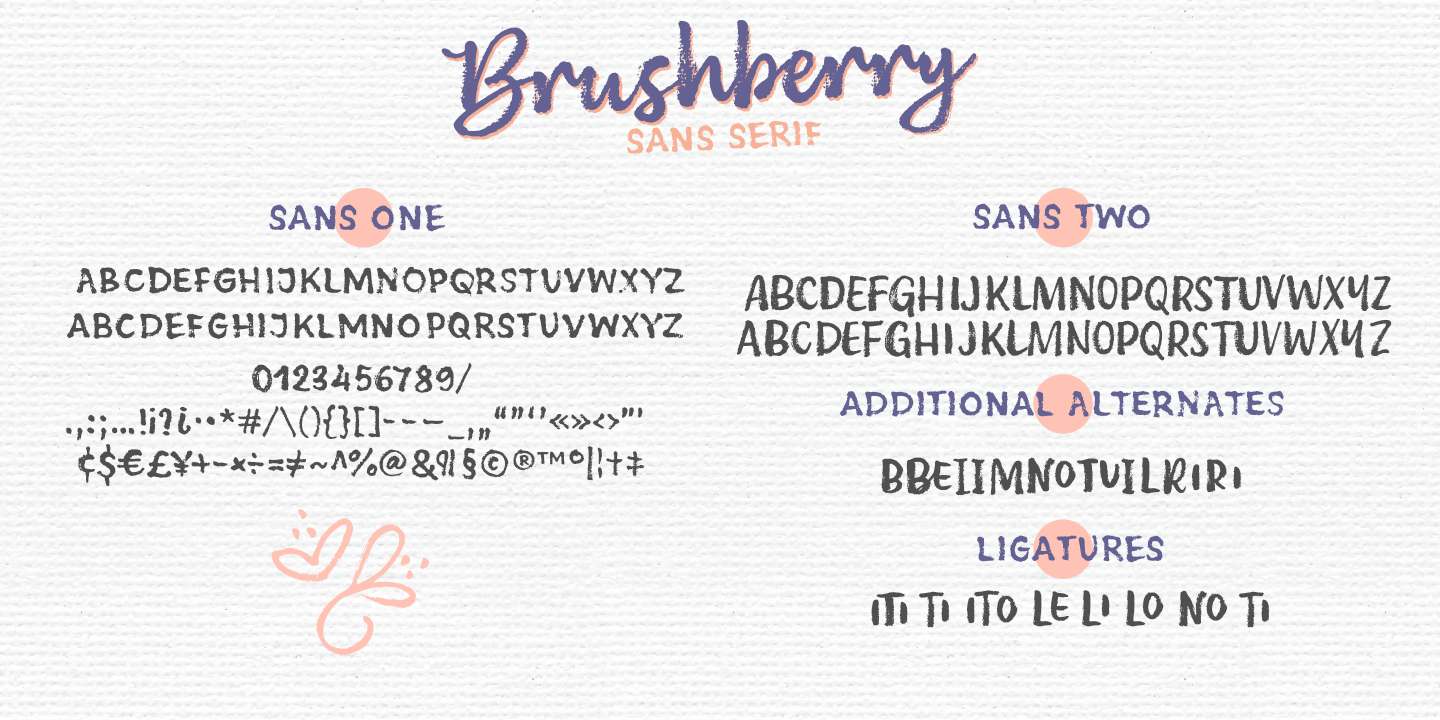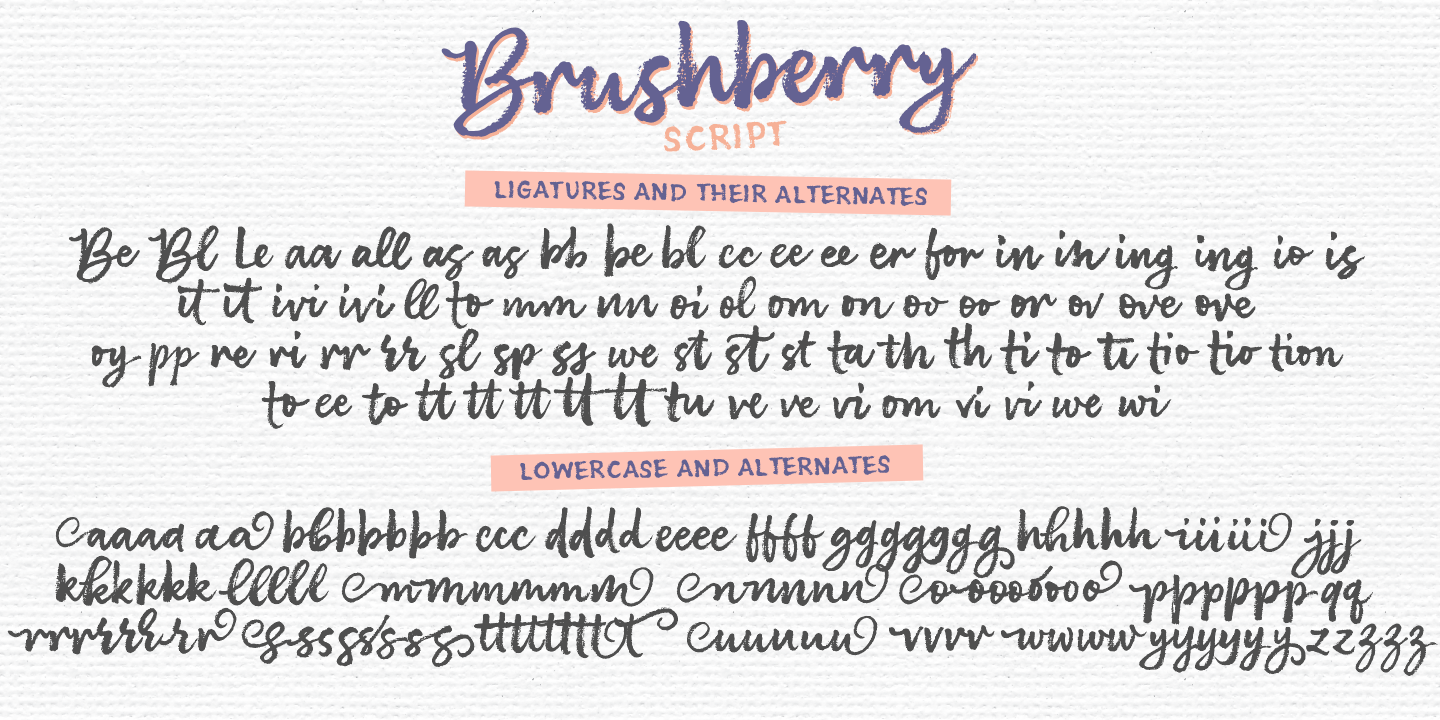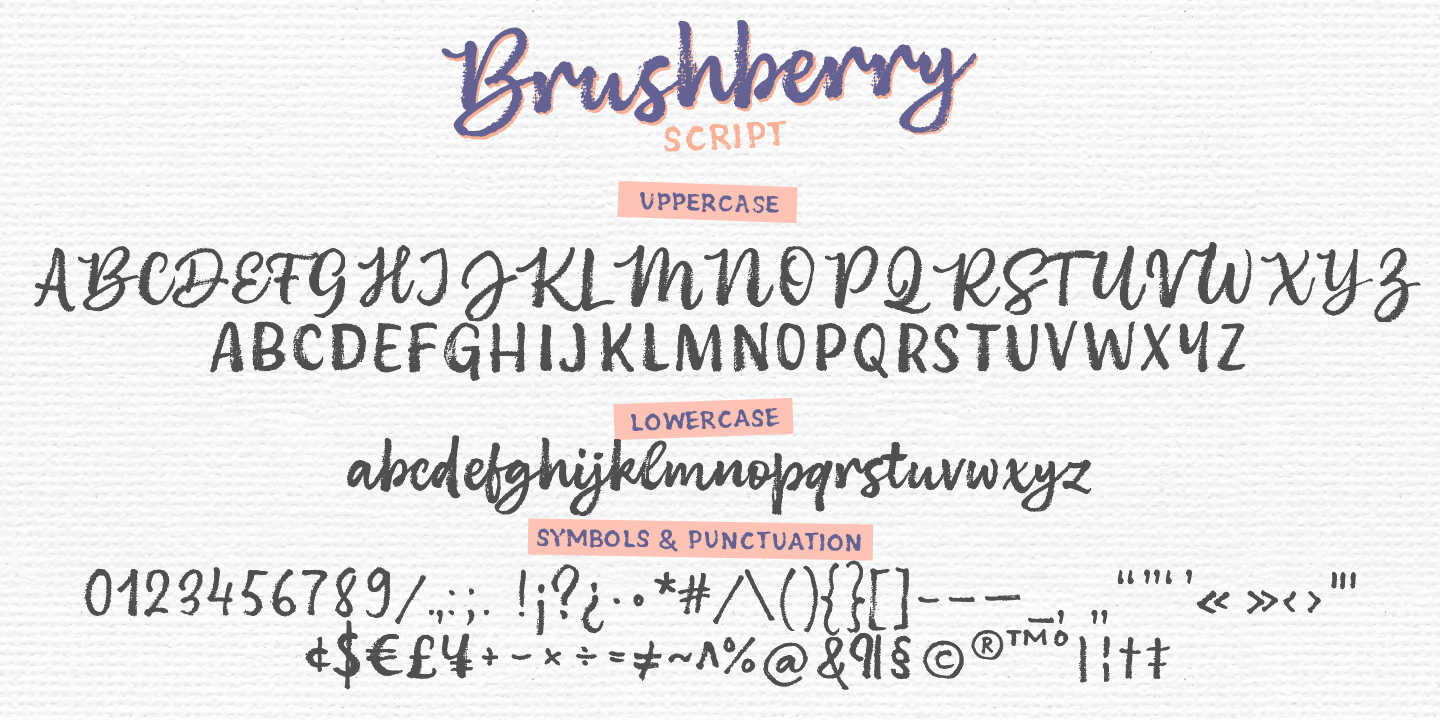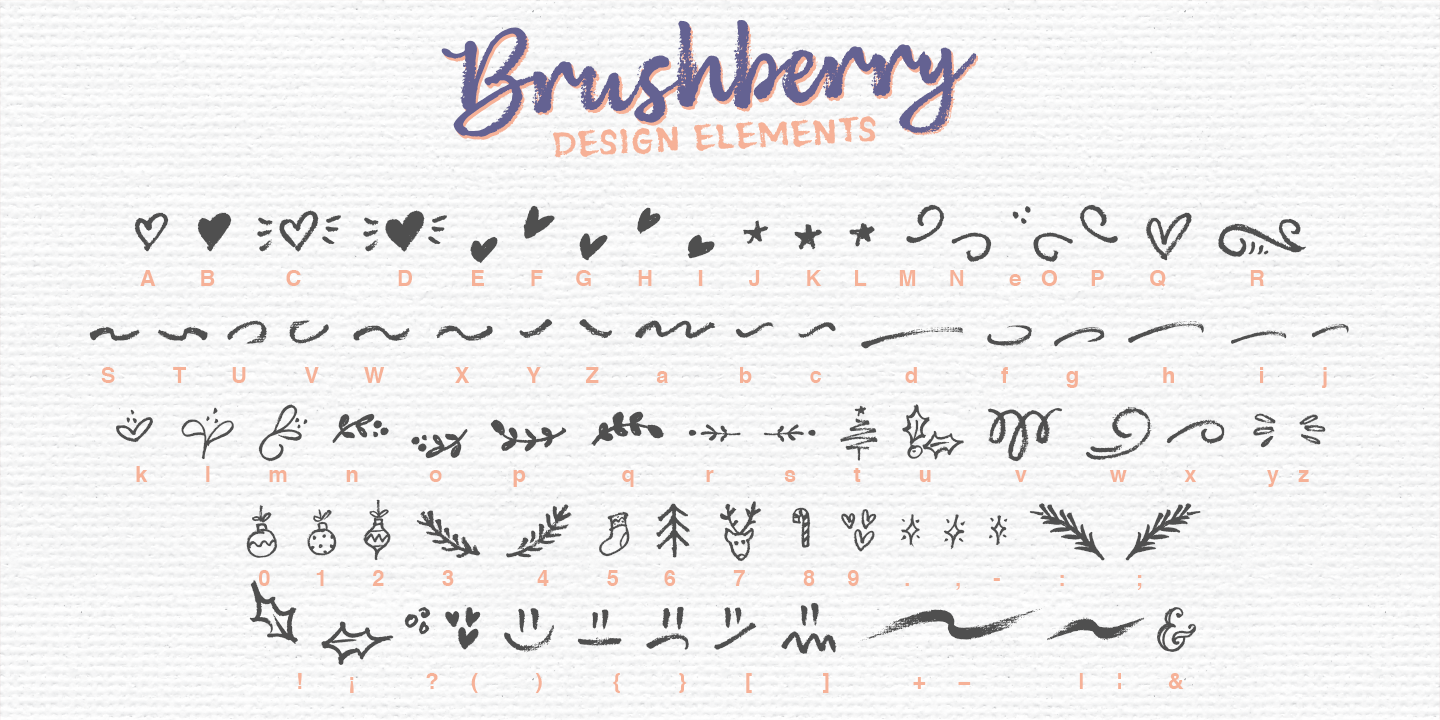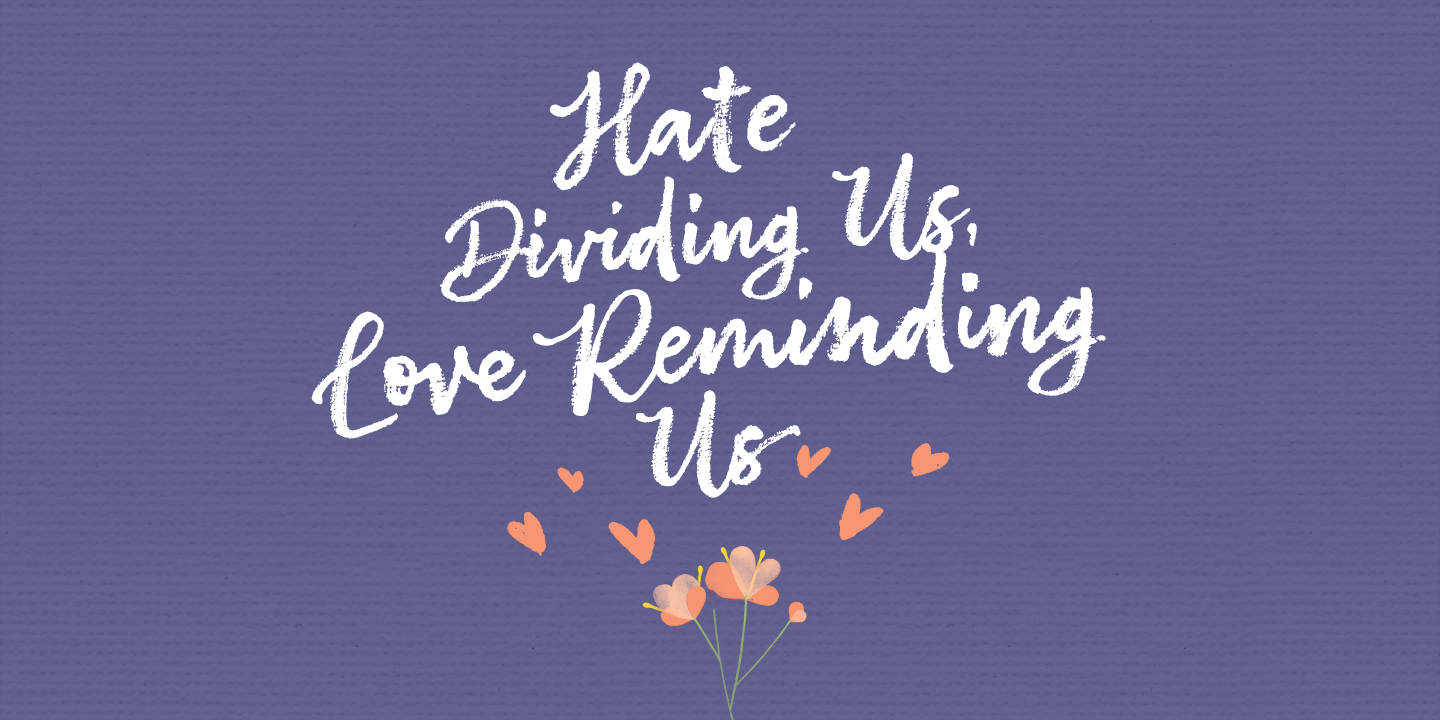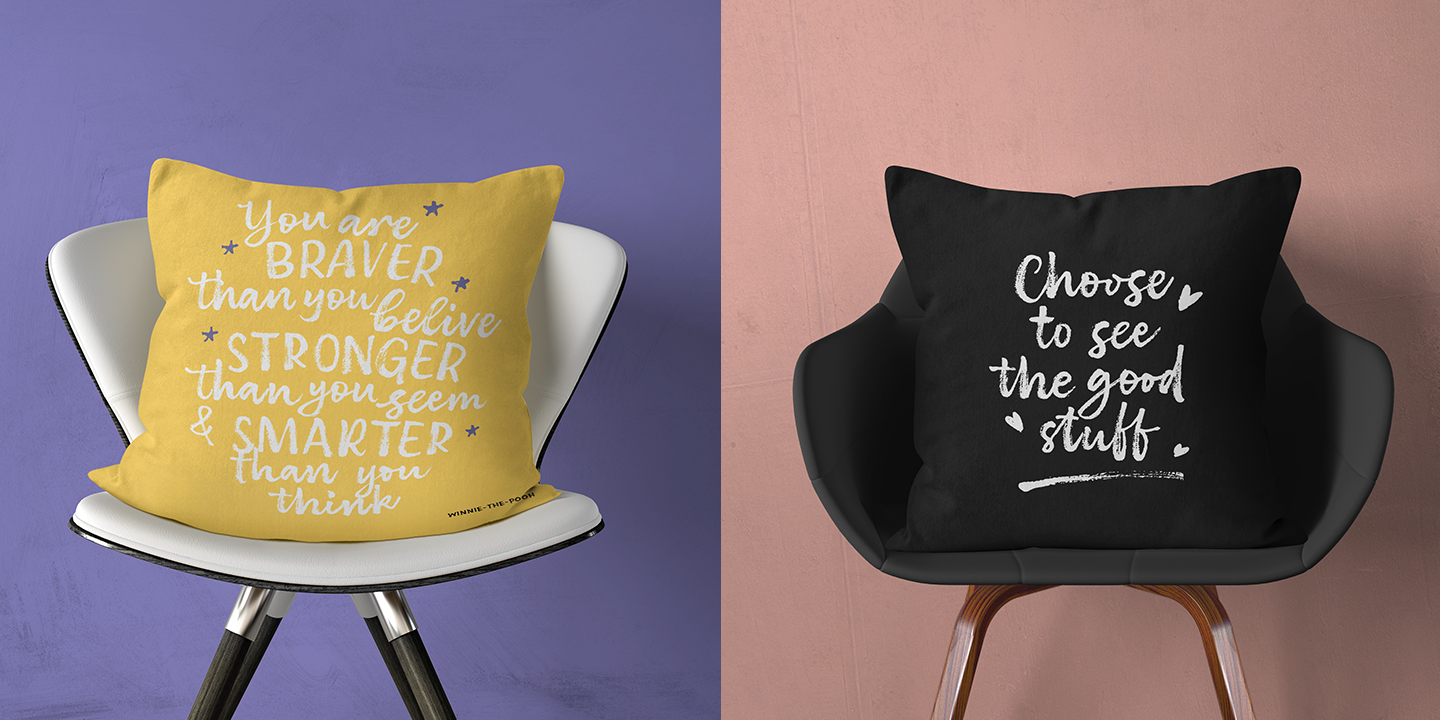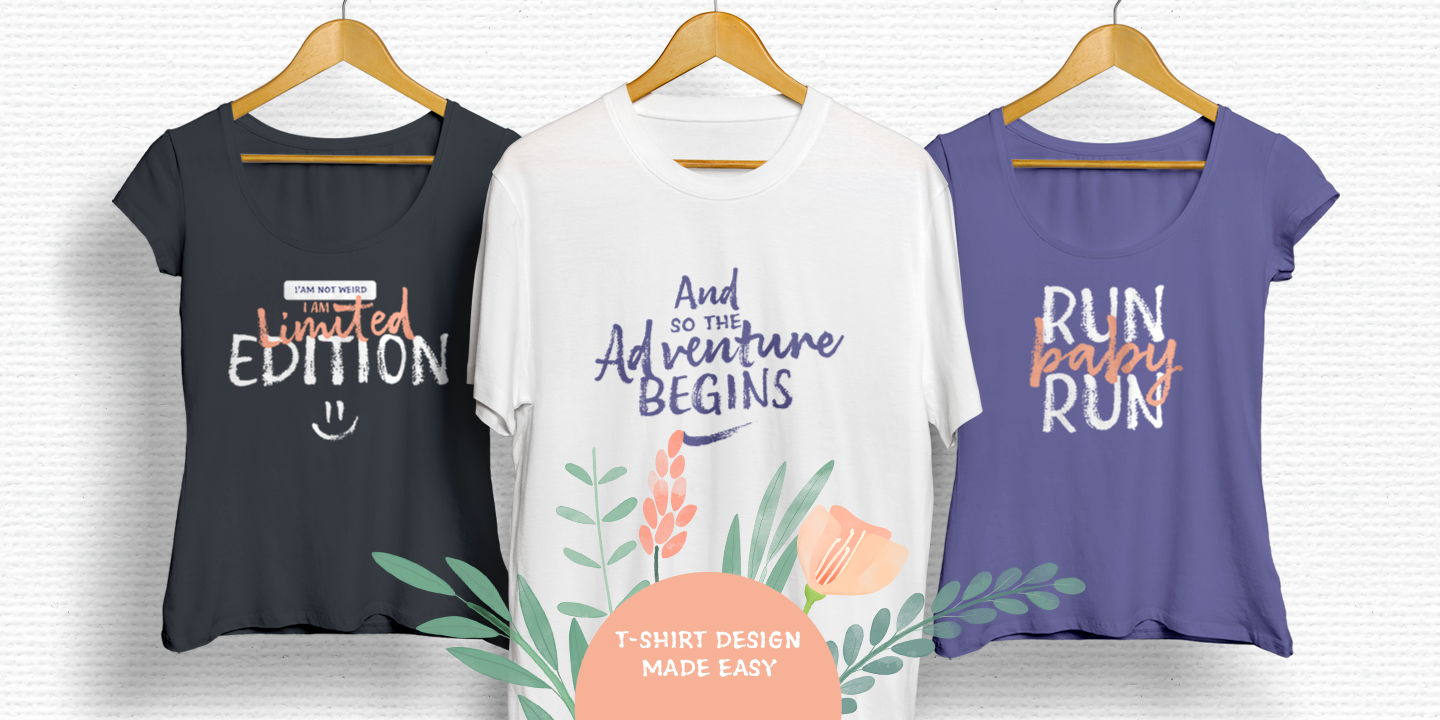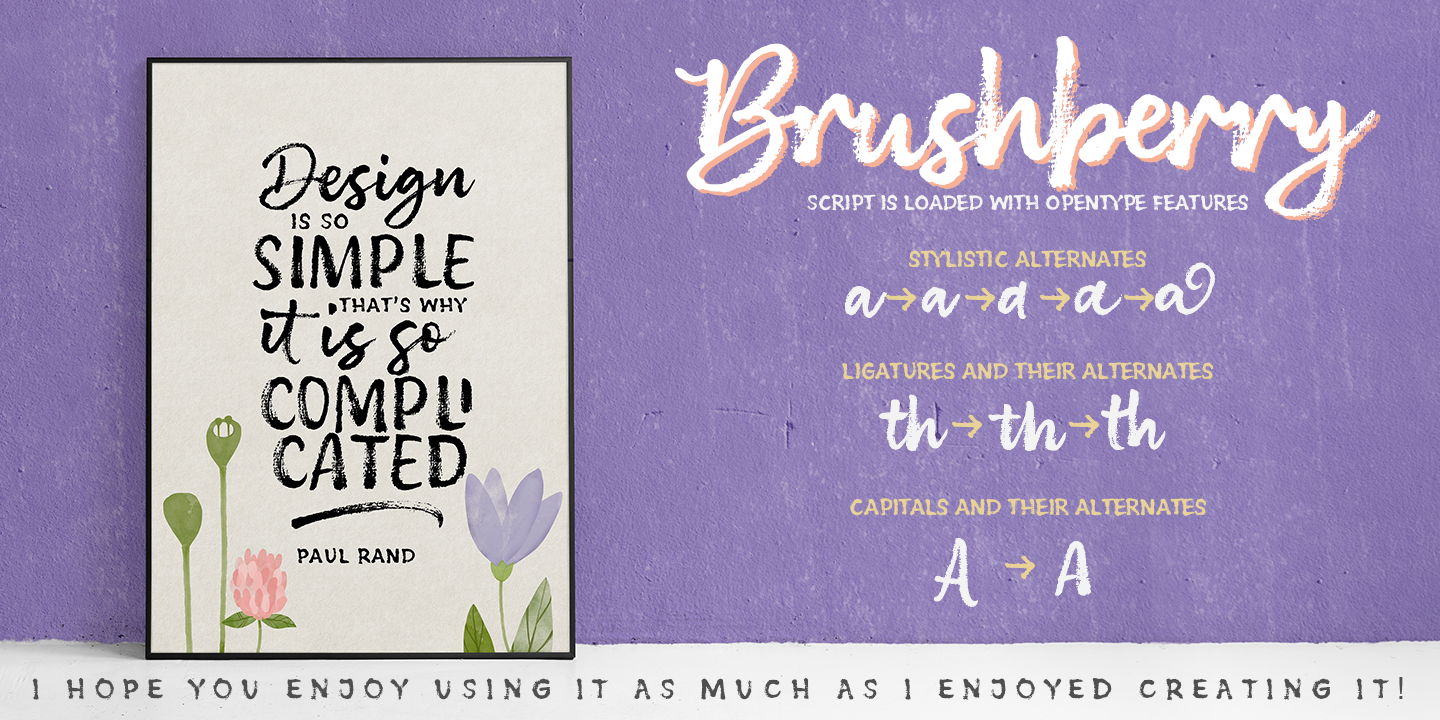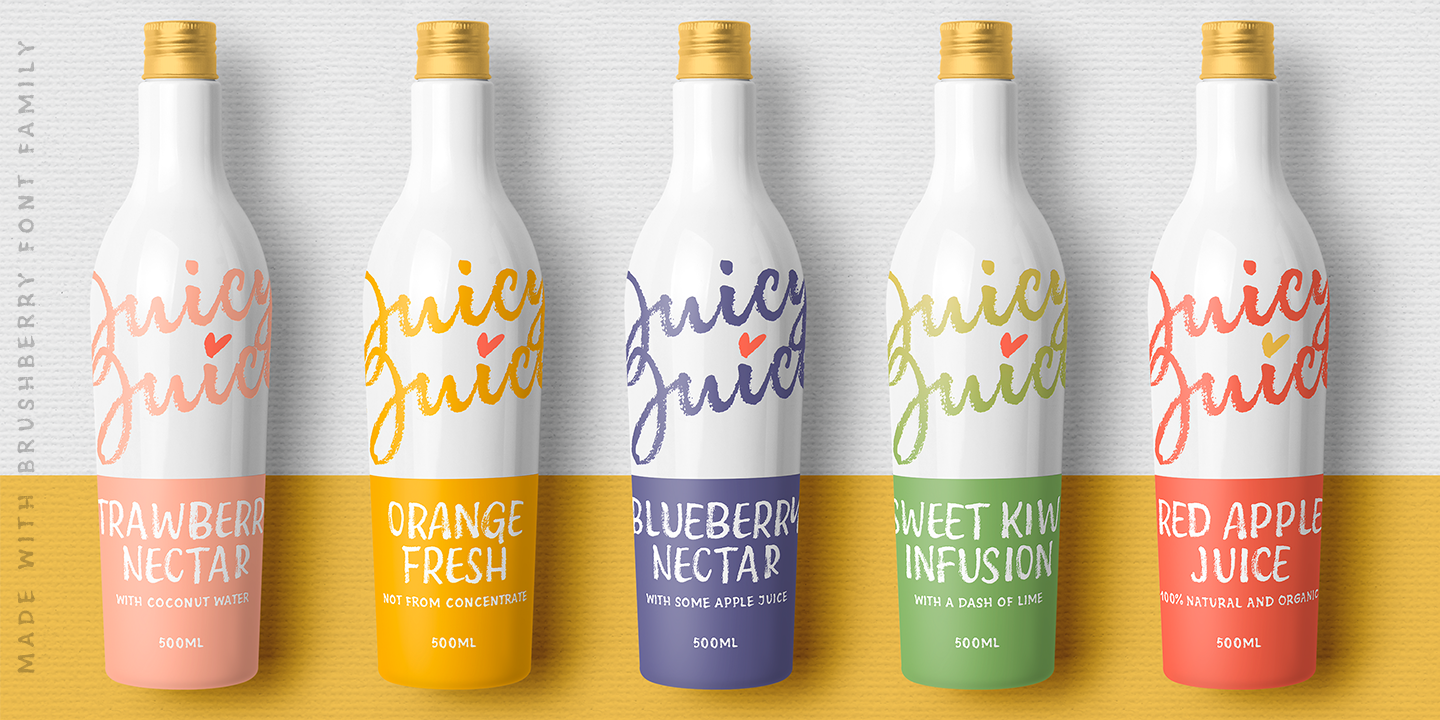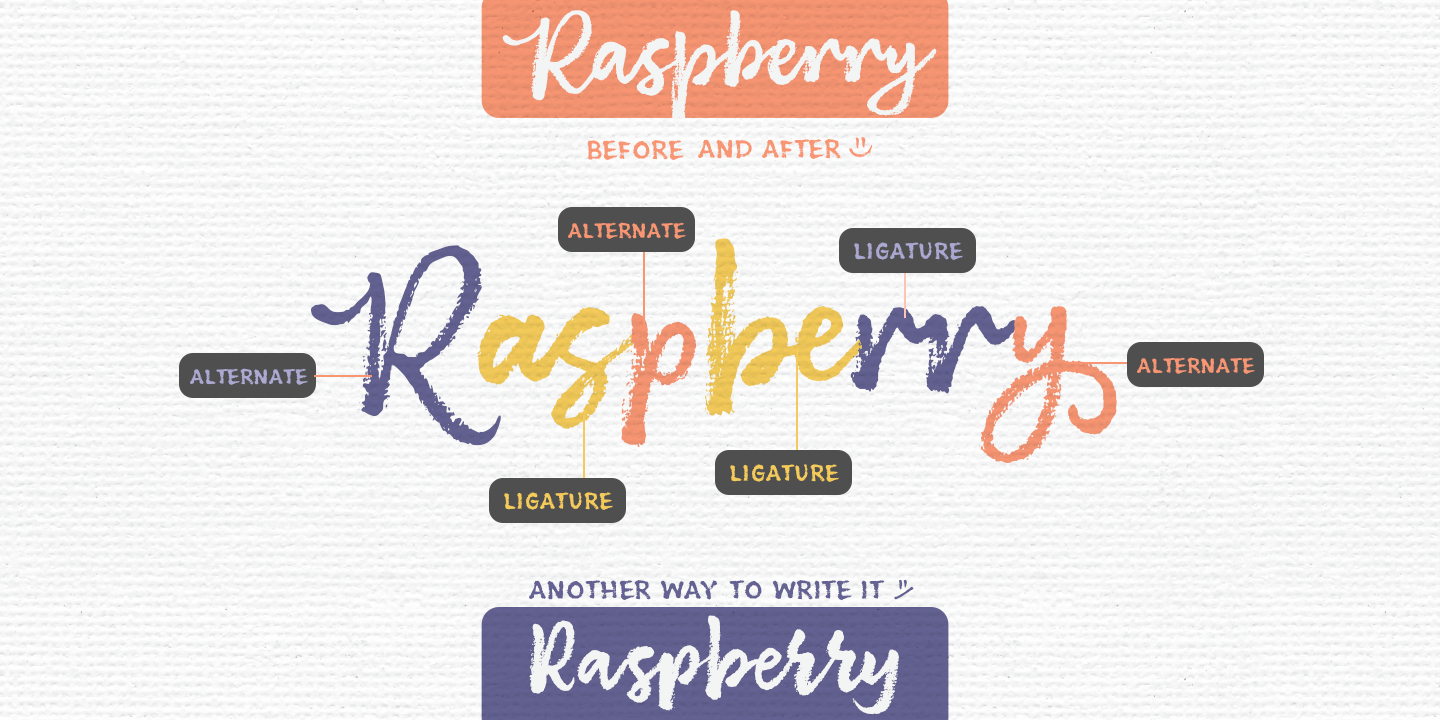
Please welcome a new brush written font family of four. Charged with positivity, this playful family is loaded with alternates, ligatures and swirls-n-swashes. It is an ideal companion in creating all sort of greeting cards, t-shirt designs, packaging design, branding etc. Design Elements includes a variety of Christmas and winter holidays related elements (check preview images!). All fonts are fully unicode mapped and you can select the glyphs you need using either your application's glyphs panel or a standard software that comes with Windows/Mac - CharactersMap/FontBook. Hope you enjoy using this hand-lettered font family as much as I enjoyed creating it!